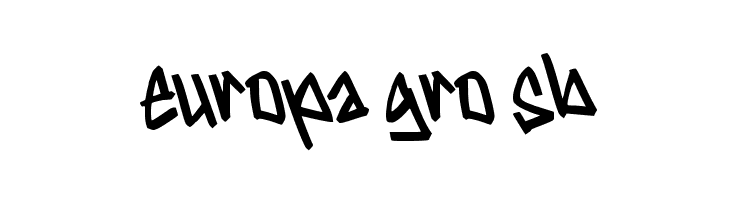
( Fonts by Ivan Gladkikh )
An ornate serif font with floral embellishments, perfect for artistic and elegant designs.
( Fonts by Ivan Gladkikh )
An ornate, decorative font with floral embellishments around bold characters.
( Fonts by Ivan Gladkikh )
An ornate, decorative font with floral embellishments.
( Fonts by Ivan Gladkikh )
An elegant serif font with intricate floral embellishments.
( Fonts by Ivan Gladkikh )
An elegant serif font with intricate floral embellishments.
( Fonts by Ivan Gladkikh )
An ornate, floral-decorated font with bold, elegant characters.
( Fonts by wep )
A bold, graffiti-inspired font with dynamic, edgy characters.
( Fonts by ilhamtaro )
An ornate, blackletter-inspired font with bold, decorative elements.
( Fonts by Joseph Dawson )
A bold, horror-themed font with sharp serifs and dramatic embellishments.
( Fonts by Go Letter )
A playful, handwritten font with thin, consistent strokes and a casual vibe.